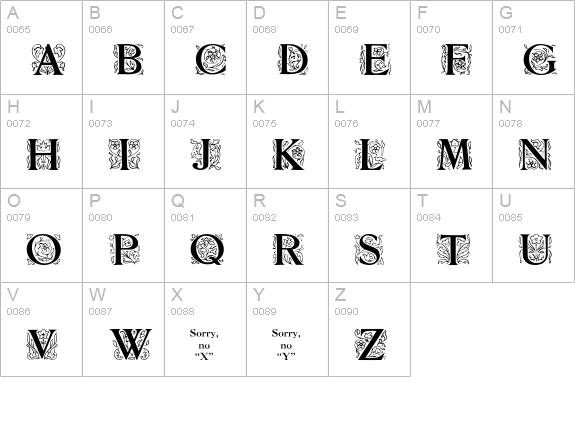
Zallman-Caps font is a timeless and elegant typeface that exudes sophistication and charm. With its classic and refined letterforms, this font is perfect for adding a touch of class to any project. The ornate serifs and intricate details of Zallman-Caps make it a standout choice for headings, titles, and invitations. What makes Zallman-Caps even more appealing is that it is available for free download at FontsMarket.com. This means you can easily access this beautiful font and incorporate it into your designs without any cost. Don't miss out on the opportunity to elevate your projects with the exquisite Zallman-Caps font, now just a click away at FontsMarket.com.